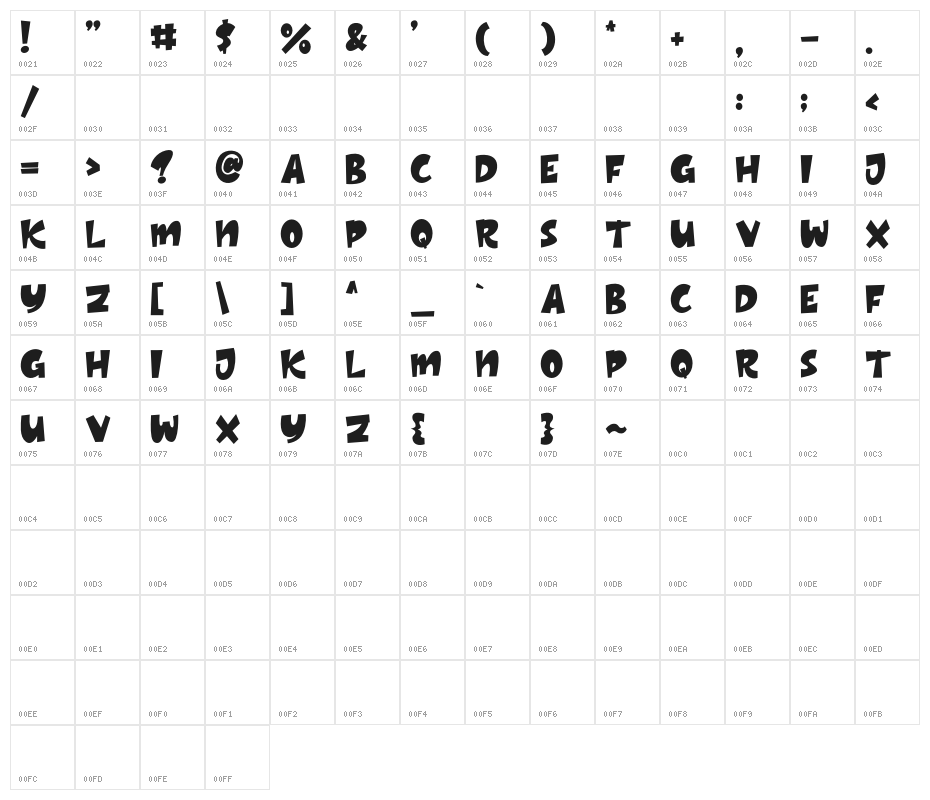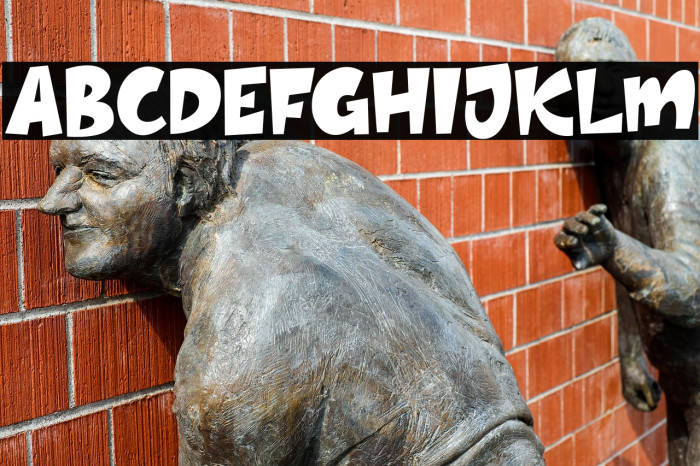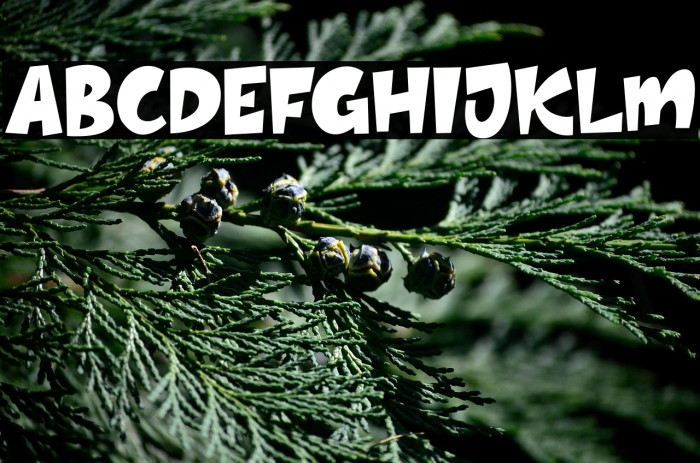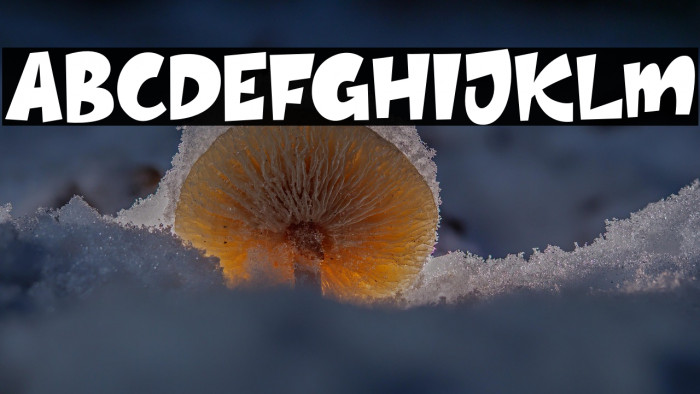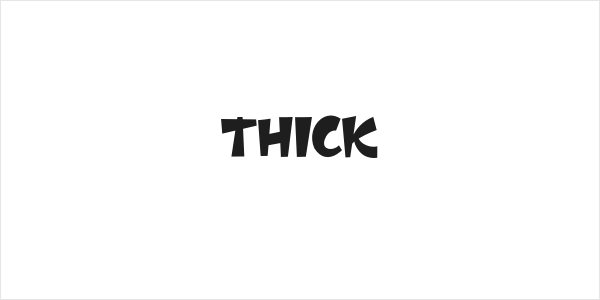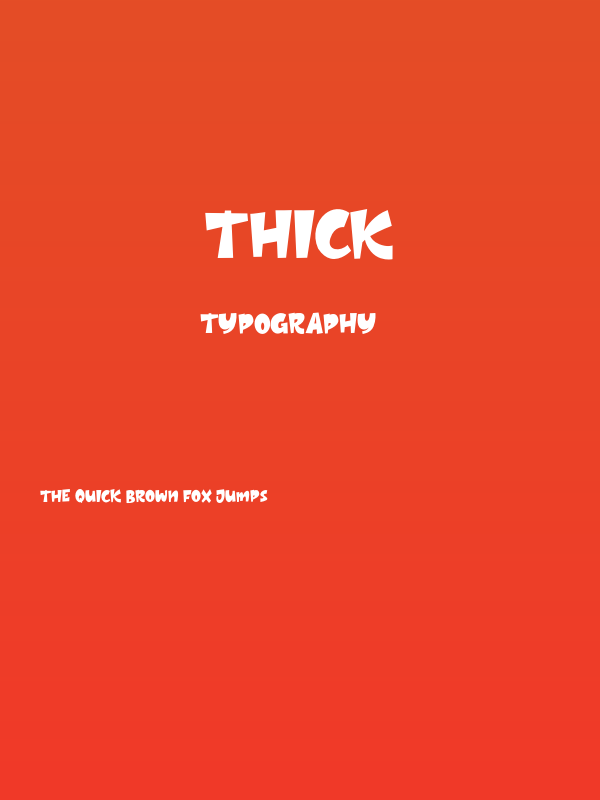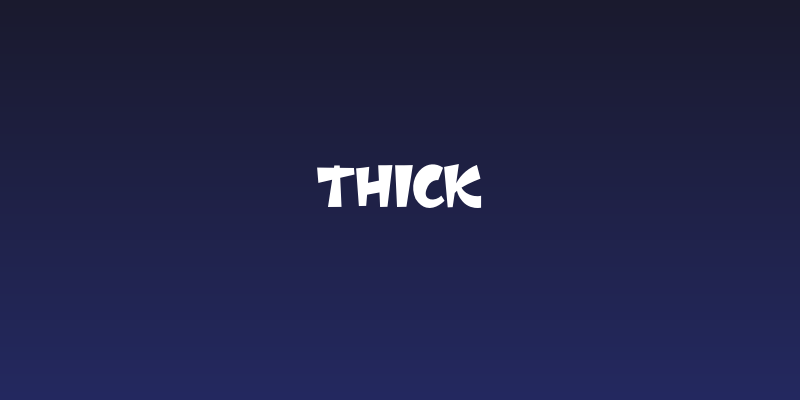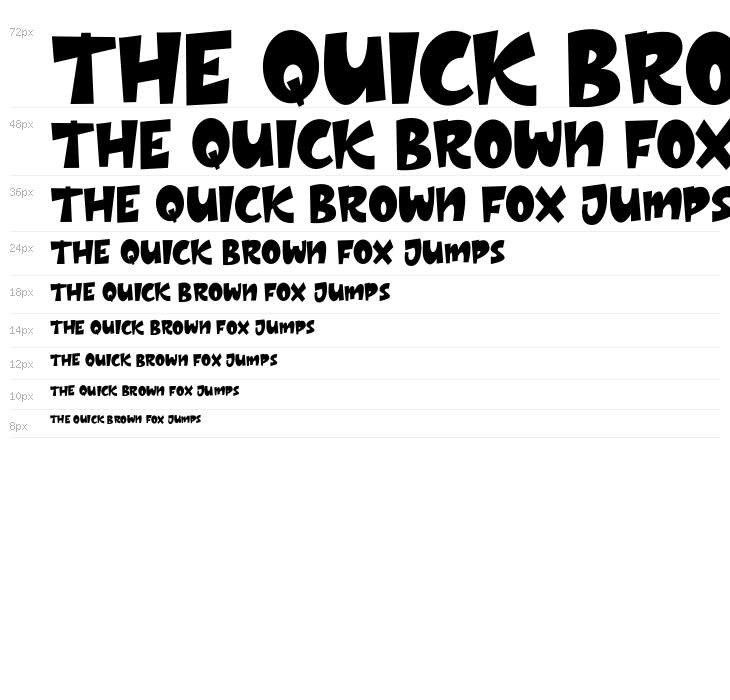
Thick Font
Thick Description
This font features bold, playful characters with a slightly irregular and whimsical design. The letters are thick and rounded, giving them a friendly and approachable appearance. The uppercase and lowercase letters maintain a consistent style, with exaggerated curves and angles that add a sense of movement and energy. The numbers and special characters follow the same playful aesthetic, making the font suitable for creative and informal applications. The overall design is eye-catching and distinctive, perfect for projects that require a fun and lively touch.
Overall StylePlayful, Energetic
Proposed ProjectsIdeal for children's books, comic strips, playful branding, and party invitations.